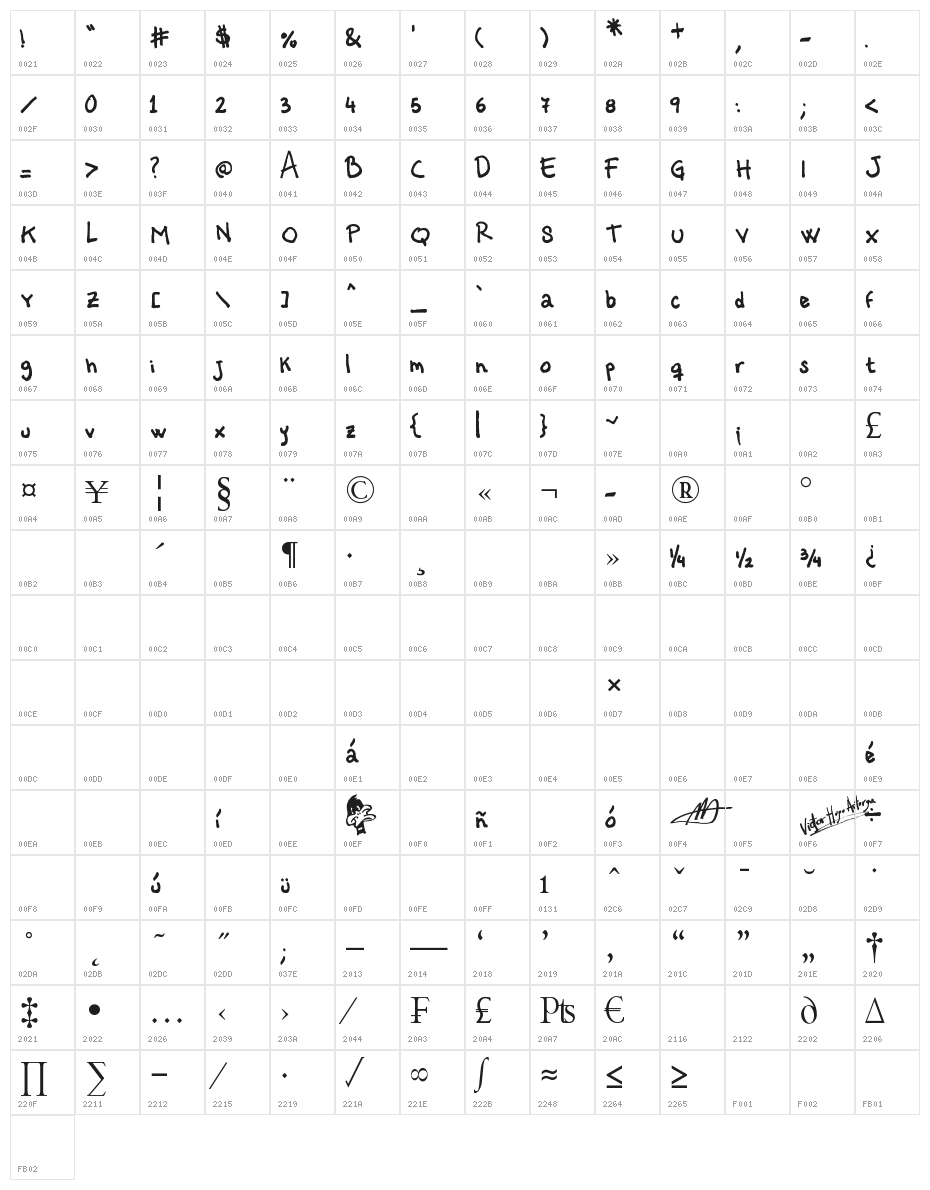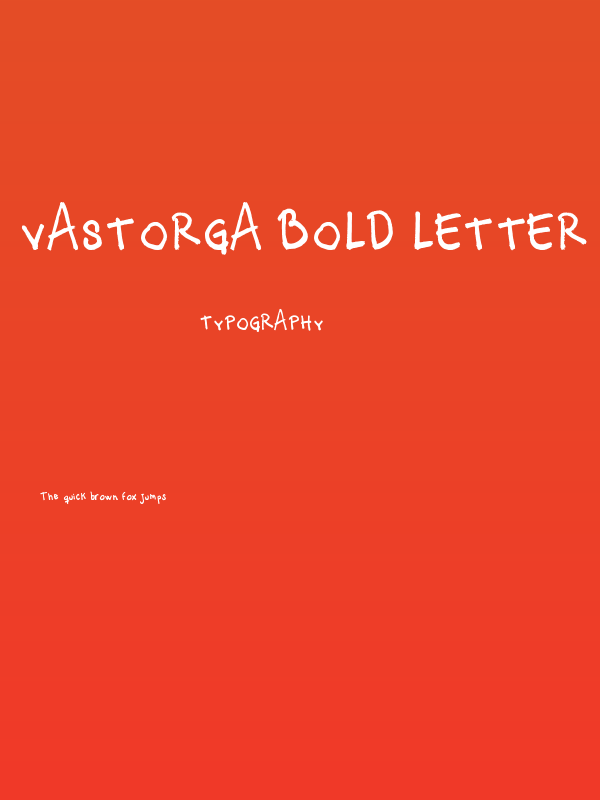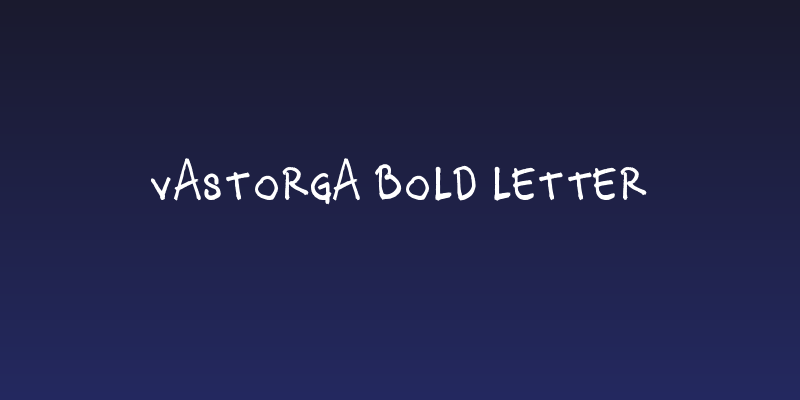
Vastorga Bold Letter Font
Vastorga Bold Letter Description
This font features a bold, handwritten style with a playful and casual appearance. The characters are slightly irregular, giving it a personal and informal touch. The uppercase letters are tall and slightly narrow, while the lowercase letters maintain a consistent flow, enhancing readability. The numbers and special characters are crafted with the same playful style, ensuring a cohesive look across all text elements. This font's unique character makes it ideal for projects that require a friendly and approachable feel.
| Use Case | Logos, Headlines, Informal Text |
| Proposed Projects | Perfect for greeting cards, children's books, casual branding, and social media graphics. |